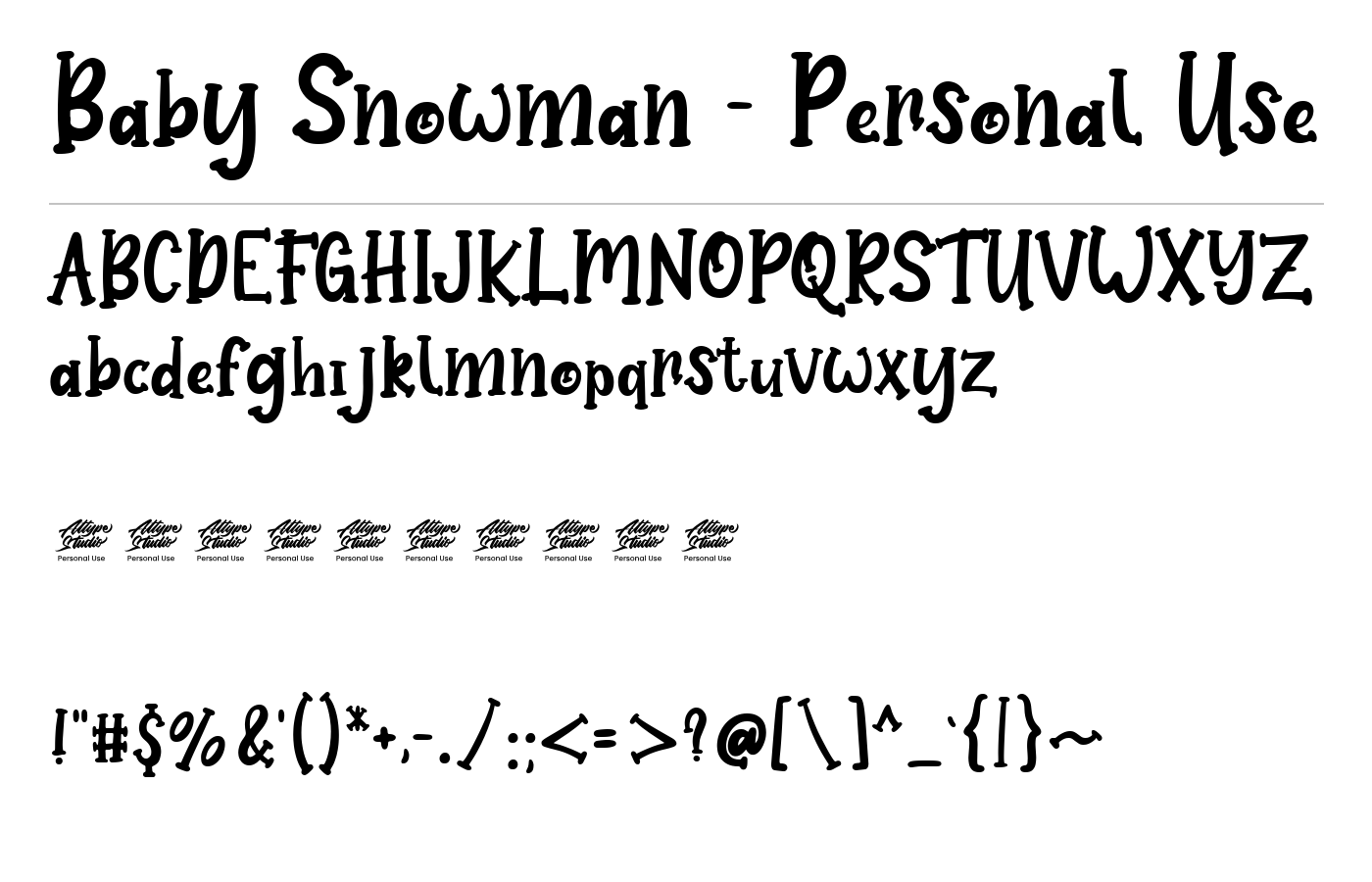
Baby Snowman is a playful and casual serif font with a hand-drawn feel, featuring irregular shapes and whimsical curves that give it a friendly, approachable personality. Its moderate weight and unique letterforms make it ideal for creative projects that want to convey warmth and charm, such as children’s books, invitations, and informal branding. This font works well in headlines or short texts where a fun, personal touch is desired.
Baby Snowman - Personal Use Font